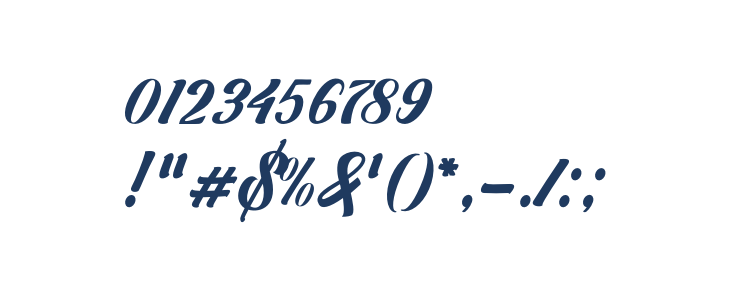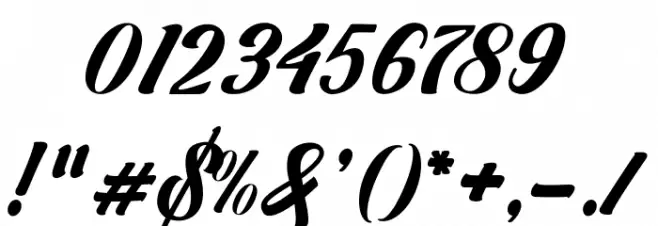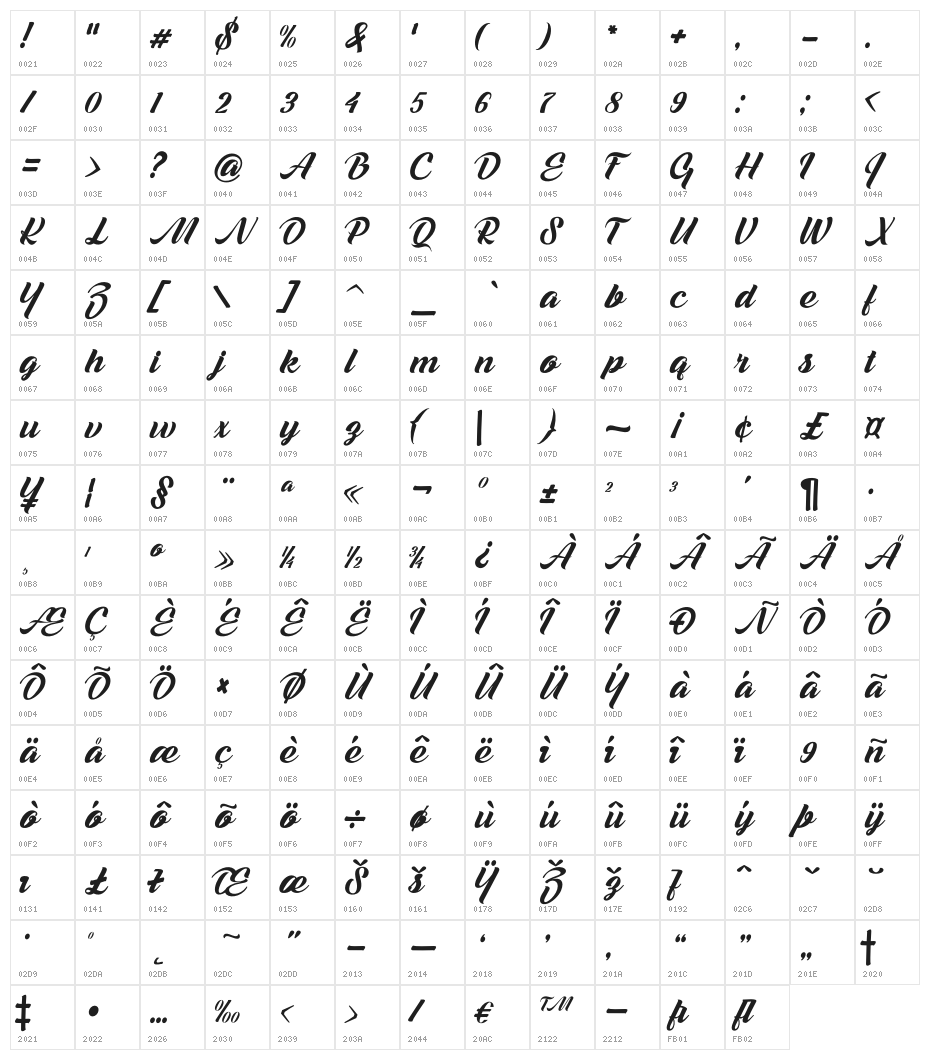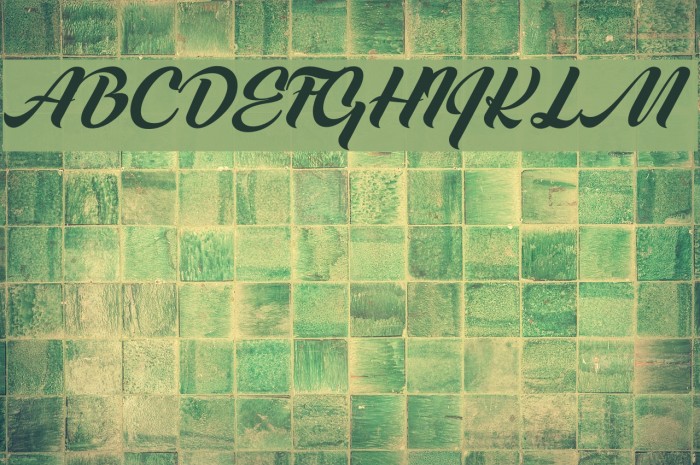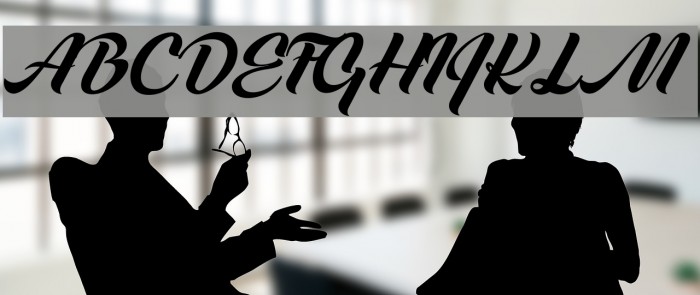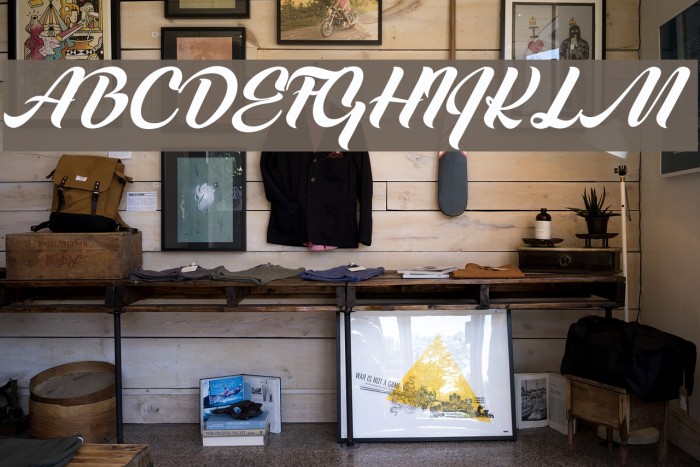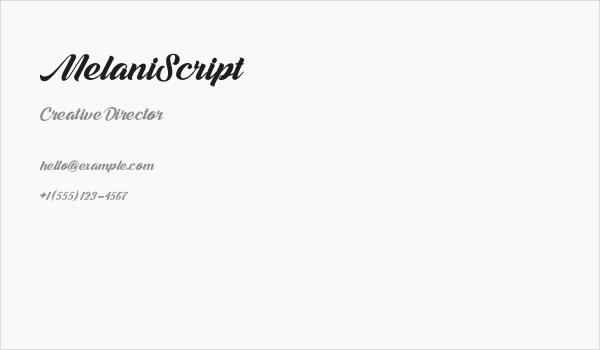
MelaniScript Font
MelaniScript Description
This script font exudes elegance and fluidity, characterized by its smooth, flowing strokes and cursive style. The letters are interconnected, creating a seamless and harmonious appearance. The uppercase letters are bold and prominent, while the lowercase letters maintain a consistent flow, enhancing readability. The numerals and special characters are crafted with the same attention to detail, ensuring uniformity across all glyphs. This font's design is both sophisticated and versatile, making it suitable for a variety of creative applications.
| Proposed Projects | Ideal for wedding invitations, greeting cards, branding, and elegant logo designs. |